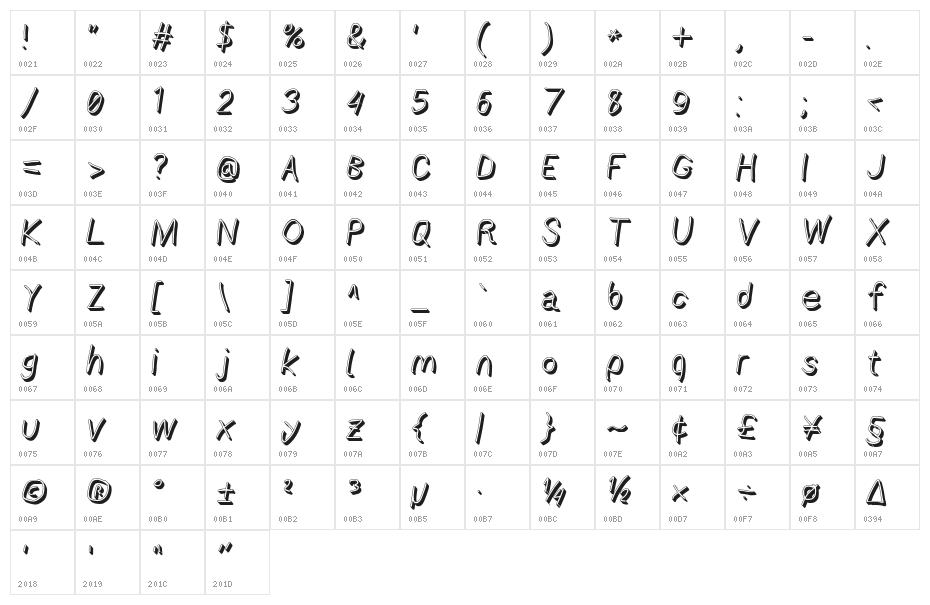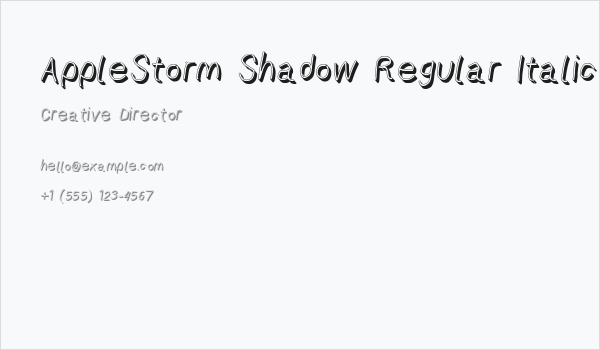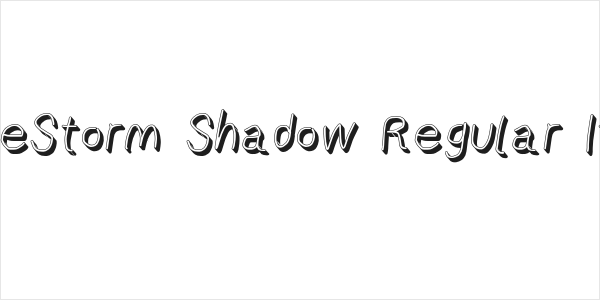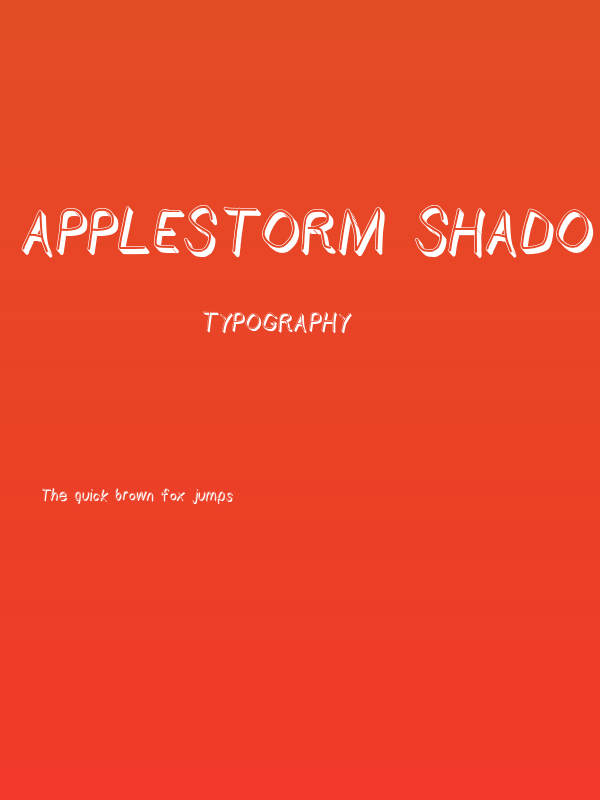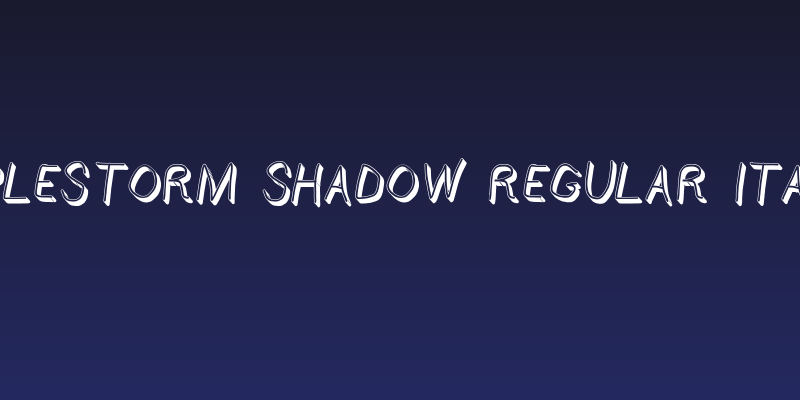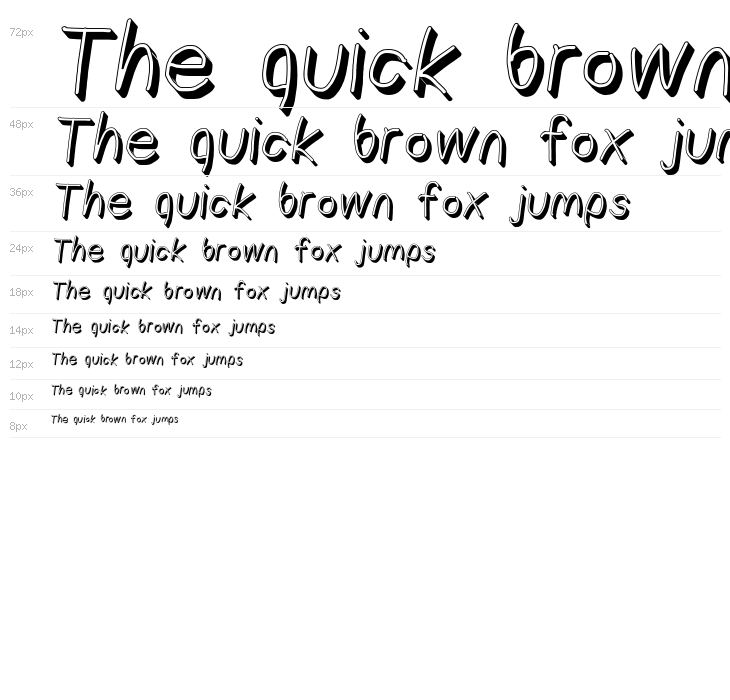
AppleStorm Shadow Regular Italic Font
AppleStorm Shadow Regular Italic Description
This font features a dynamic and playful design with a shadow effect that adds depth and dimension to each character. The letters are slightly italicized, giving them a sense of motion and fluidity. The uppercase and lowercase letters maintain a consistent style, with rounded edges and a bold presence. The numerals and special characters are equally expressive, making them stand out in any design. The shadow effect creates a three-dimensional look, enhancing the overall aesthetic and making it suitable for eye-catching designs.